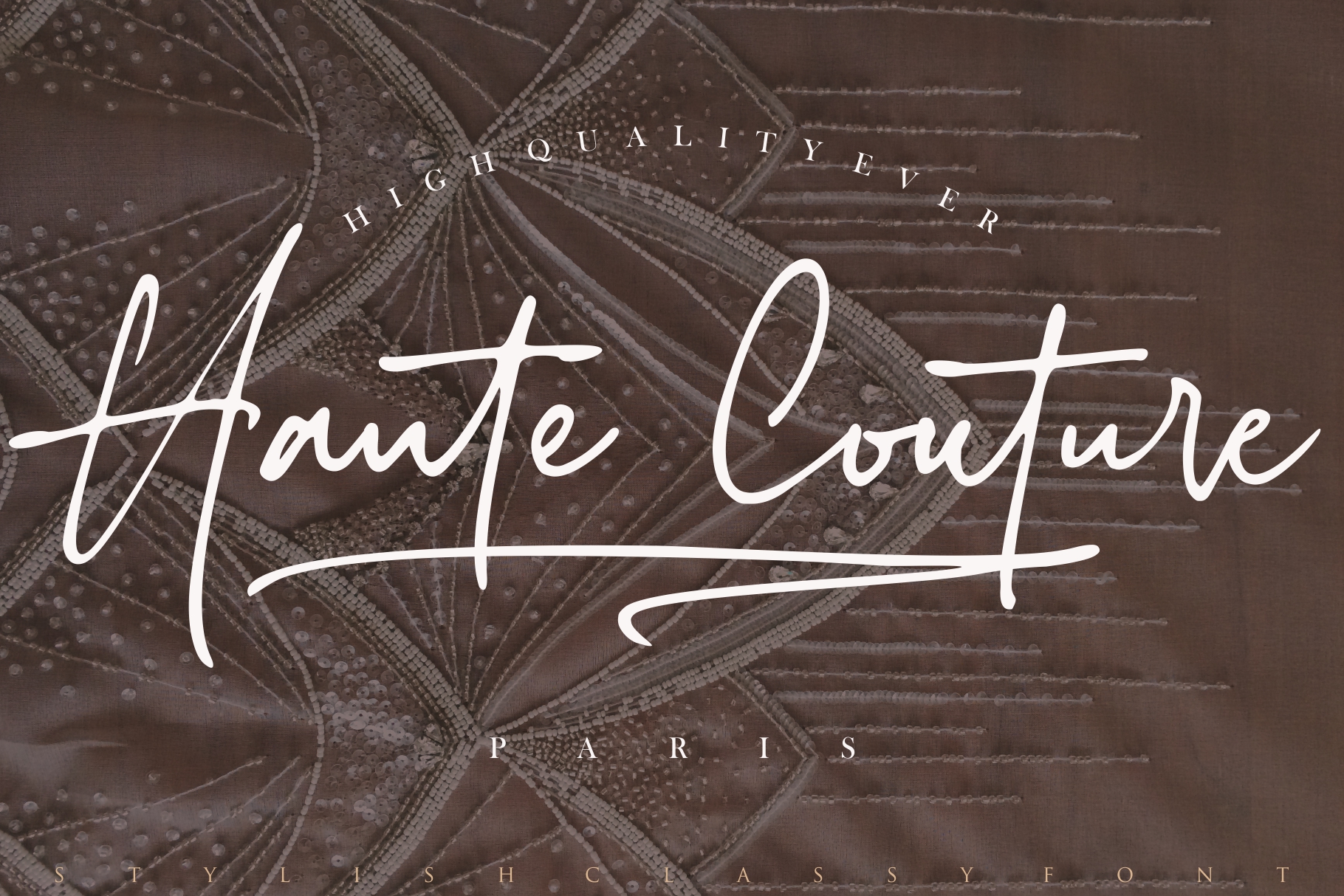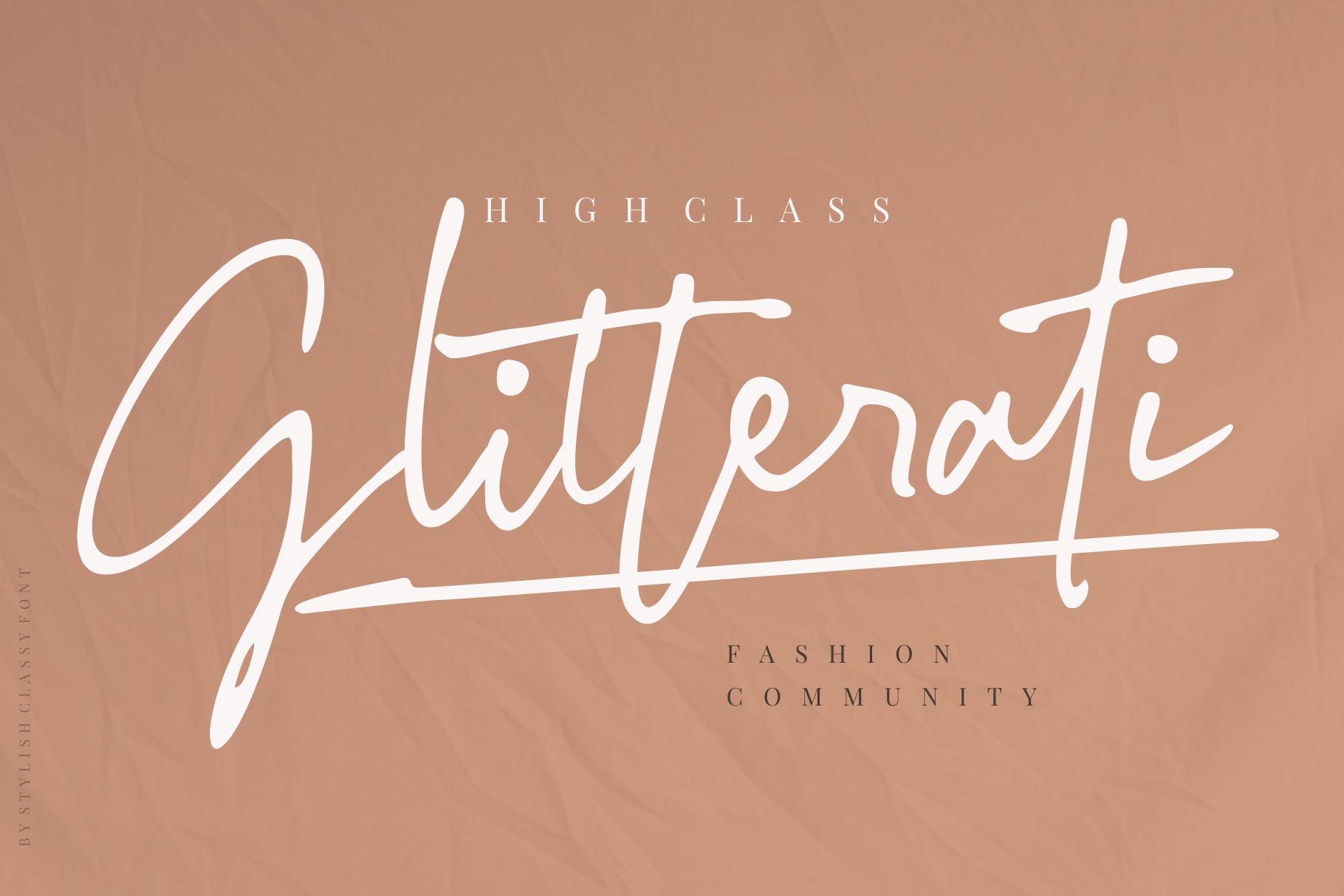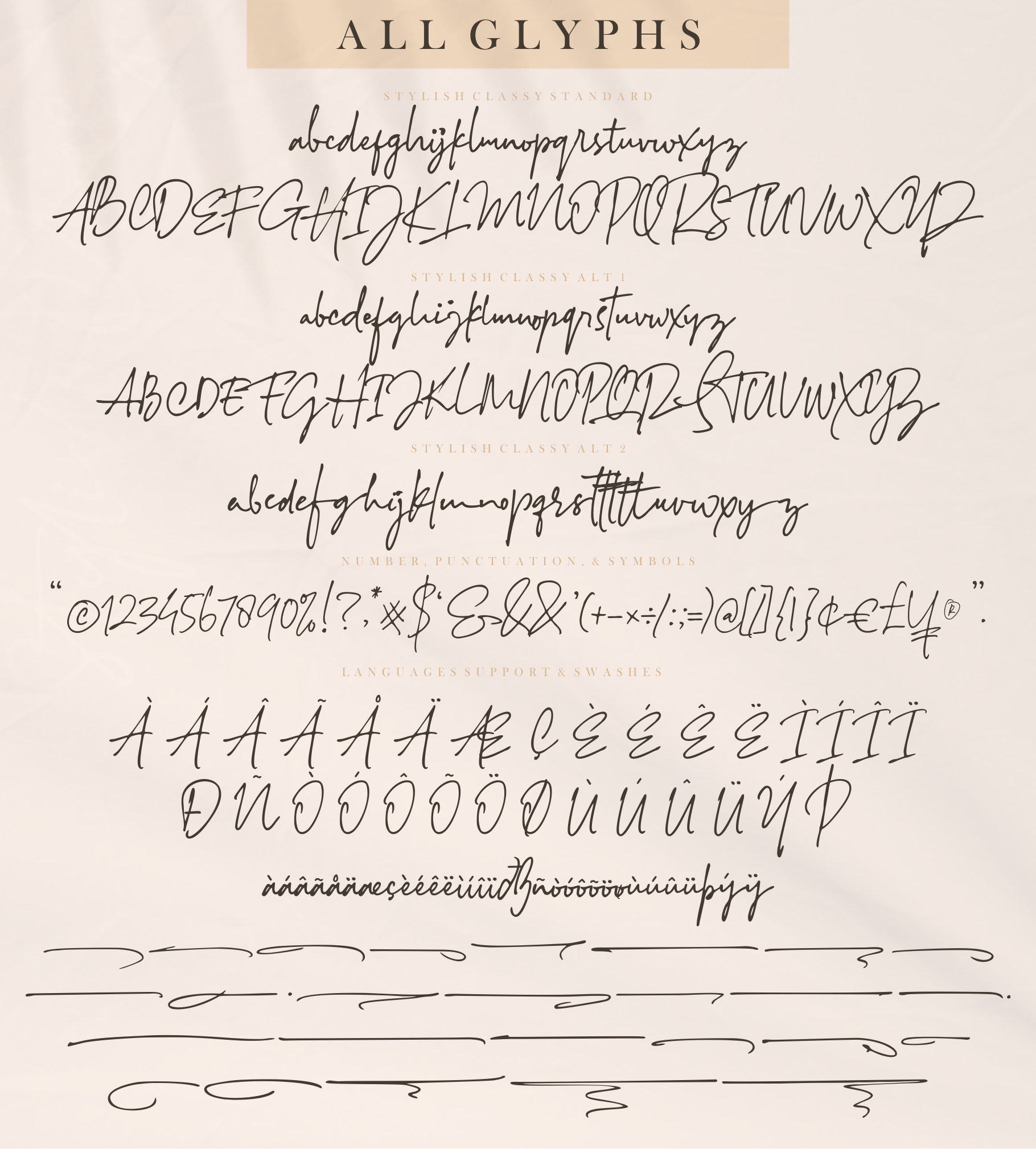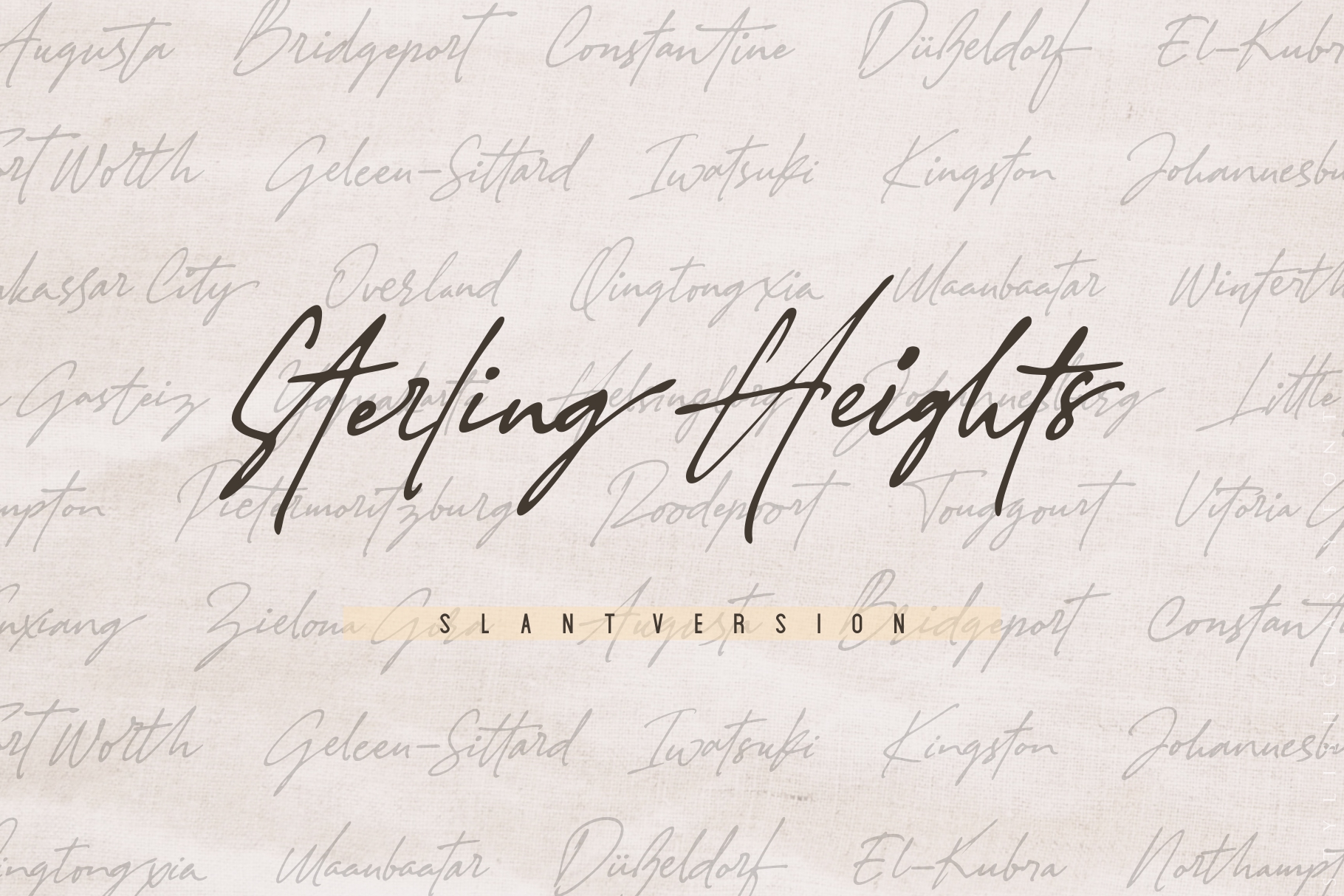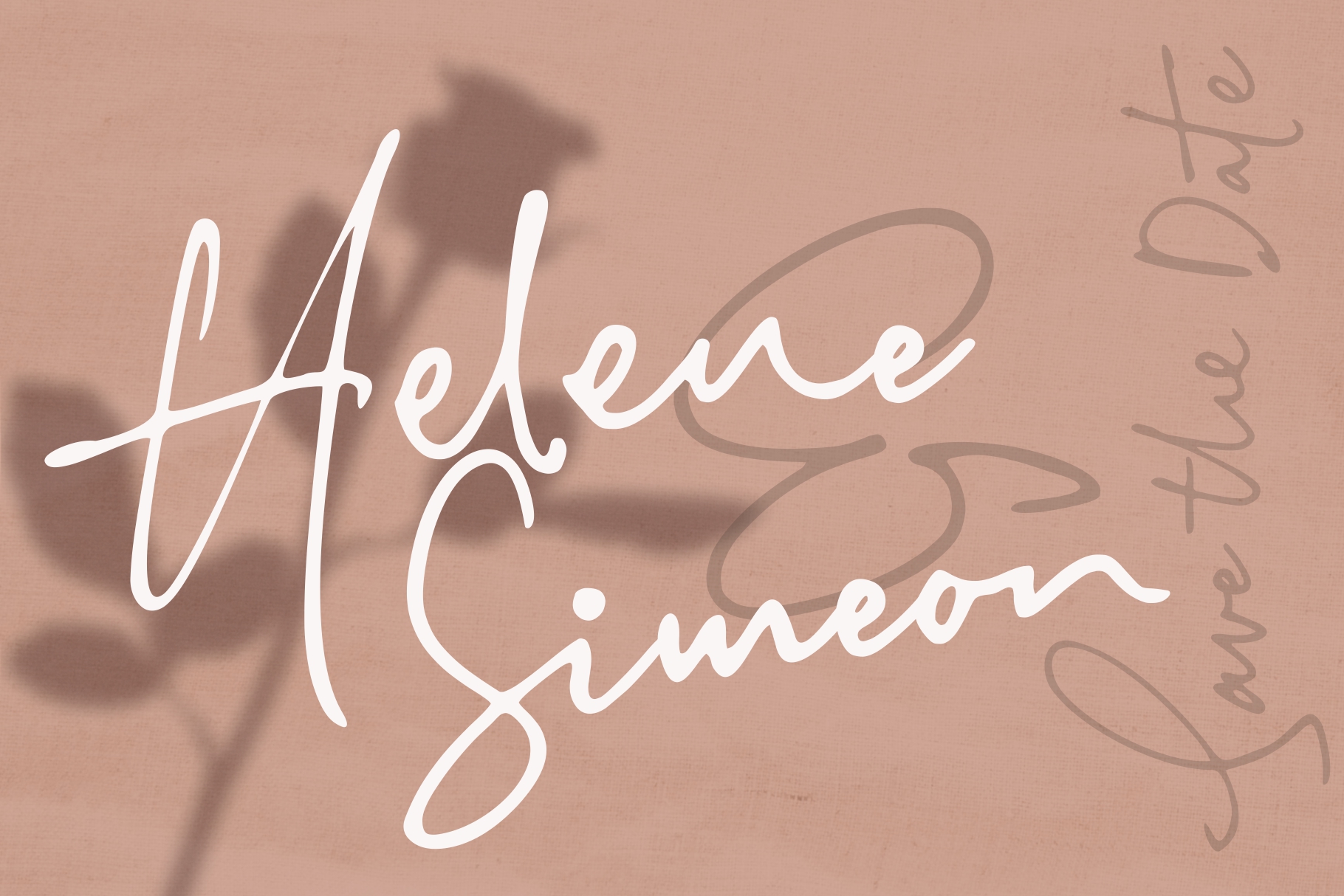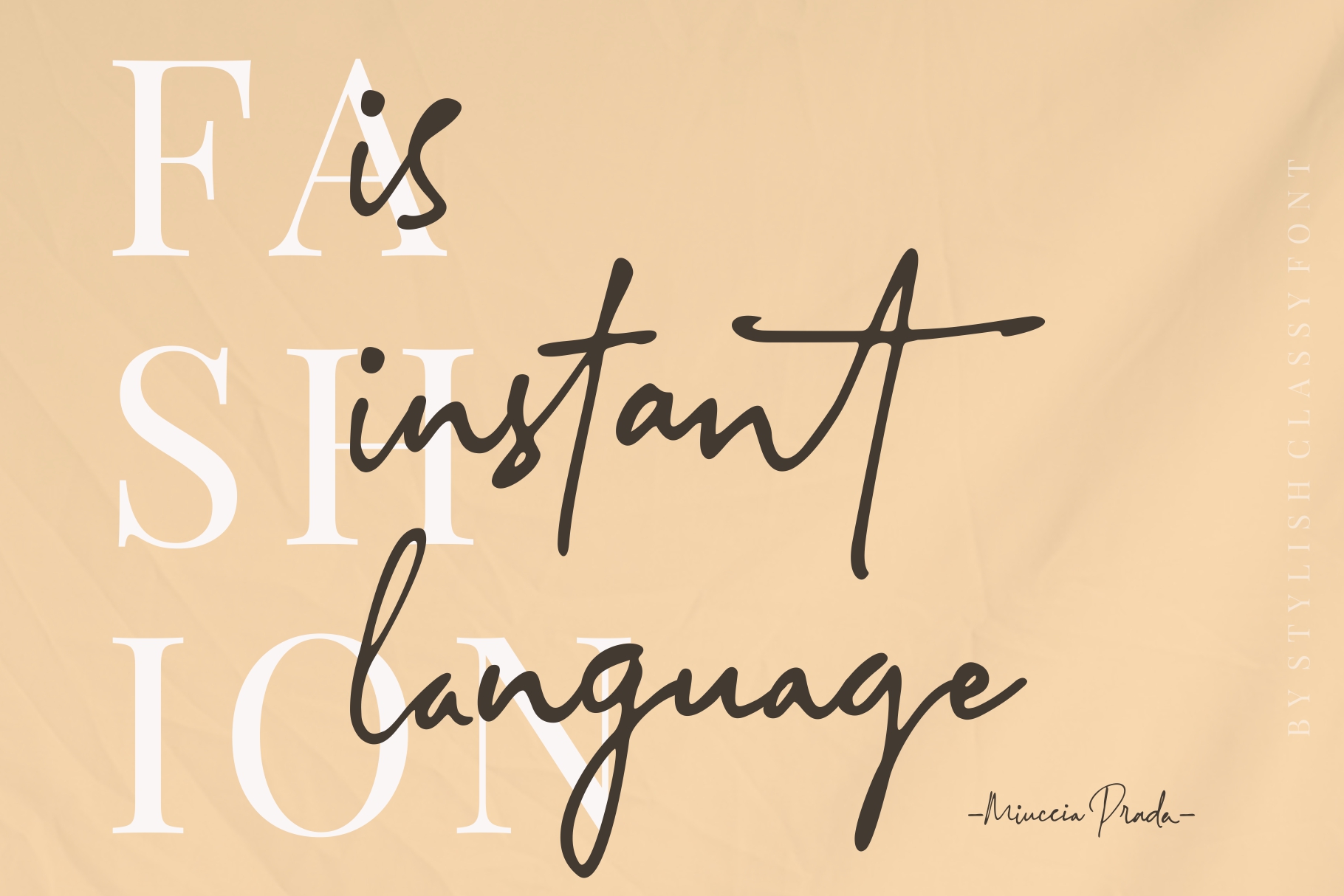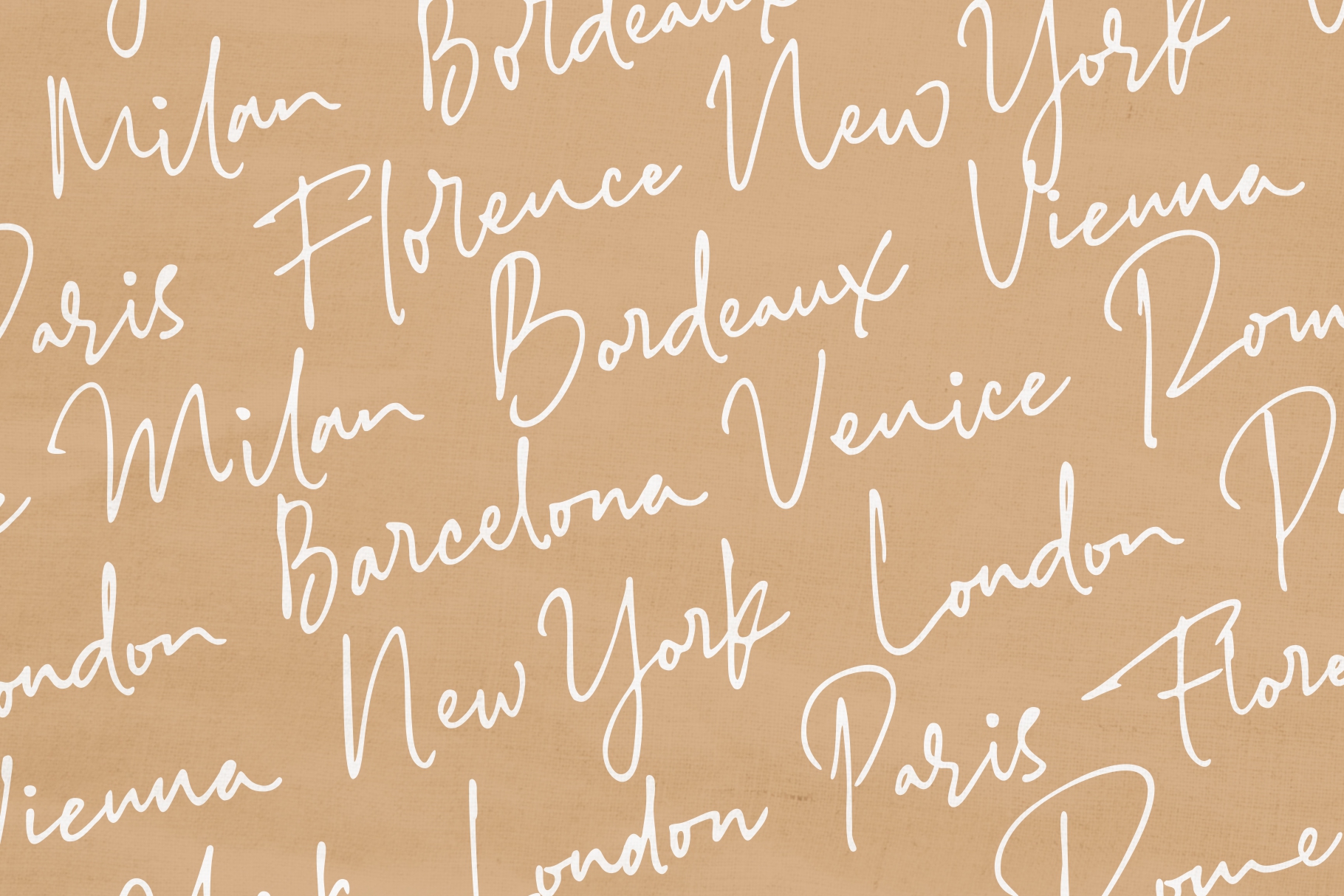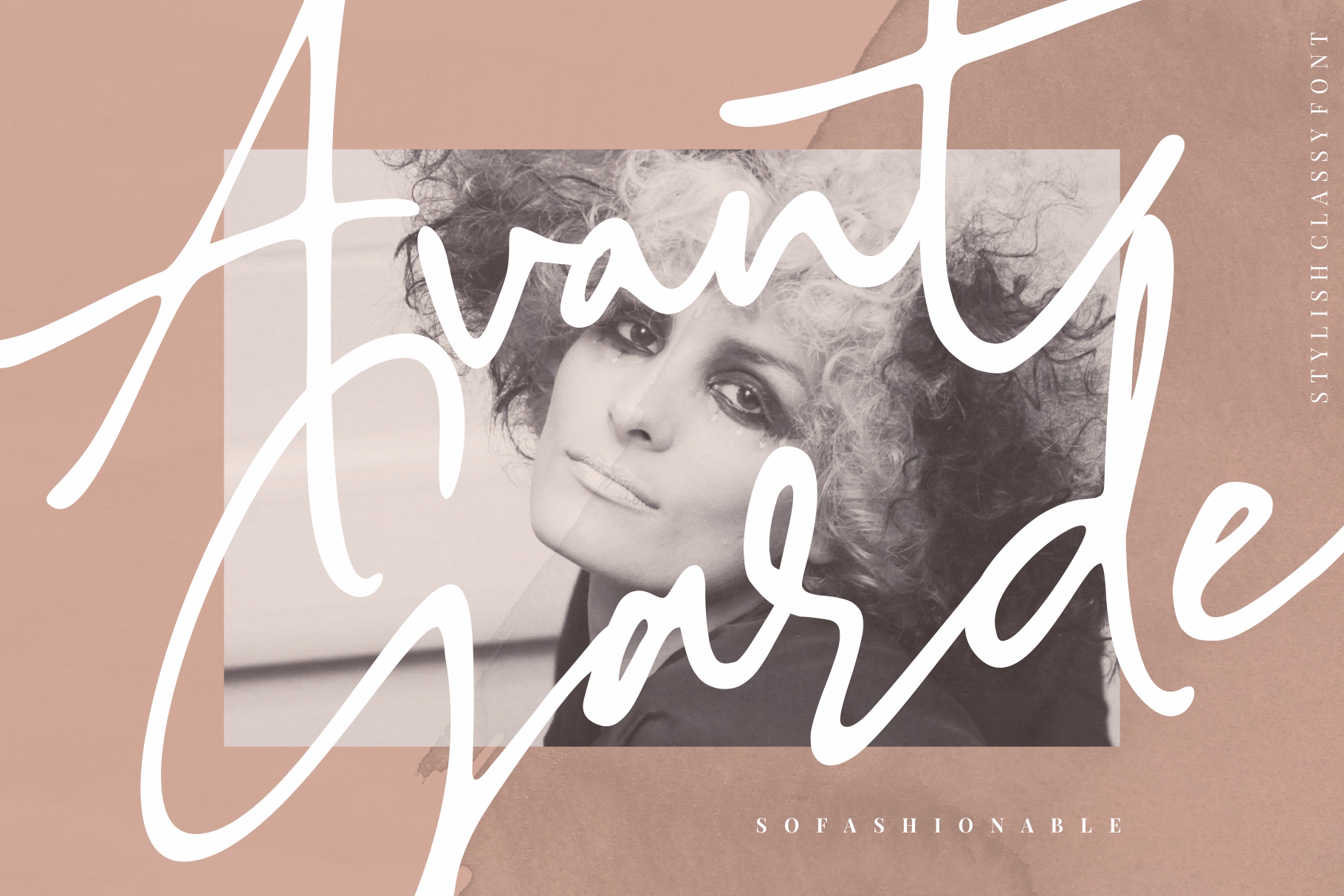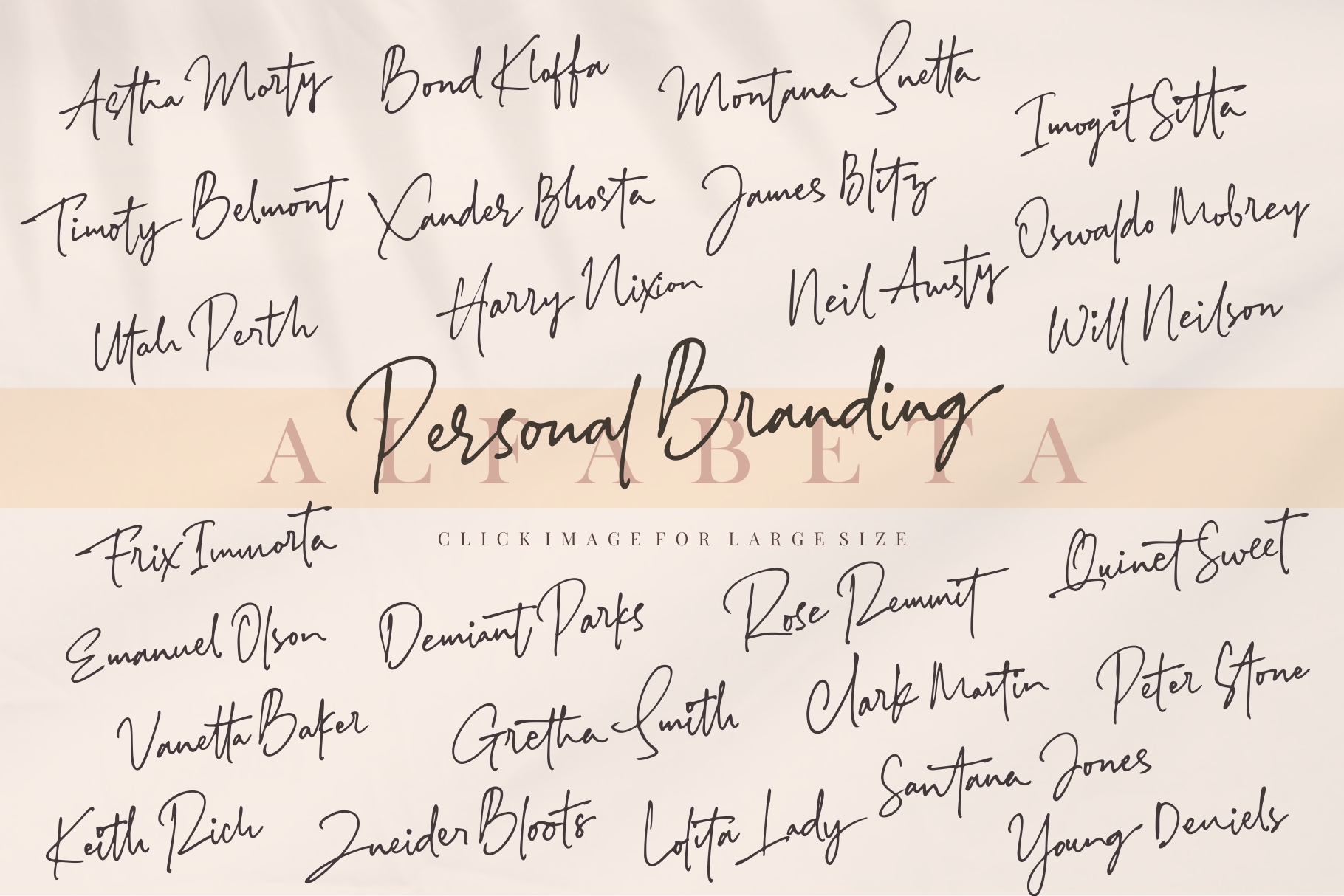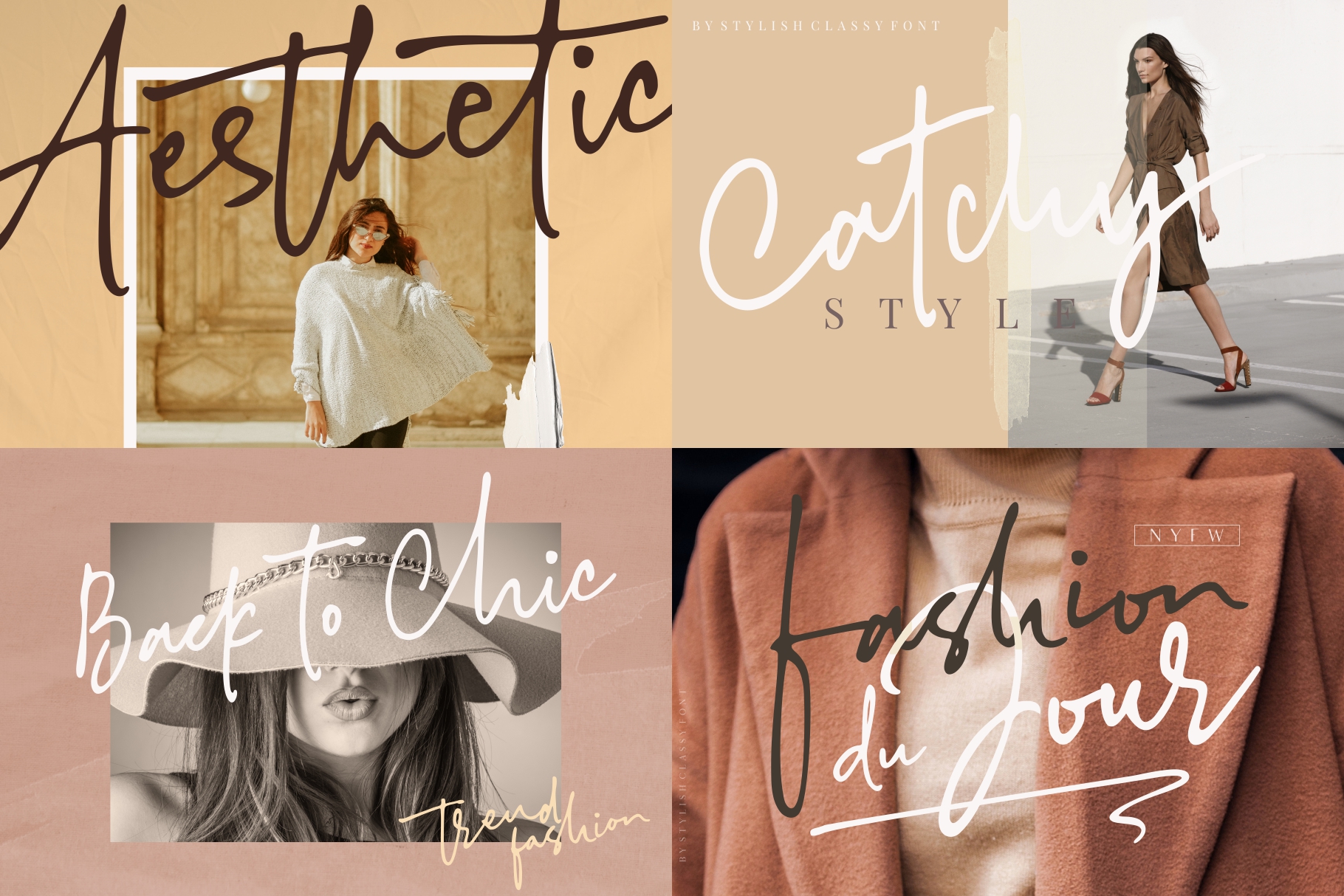
Designed by Azetype, Stylish Classy is a truly elegant handwritten stylish font duo. It’s a great choice for those professional and beautiful projects you’re working on from signatures to wedding invitations. Free for personal use! For commercial use please go here.